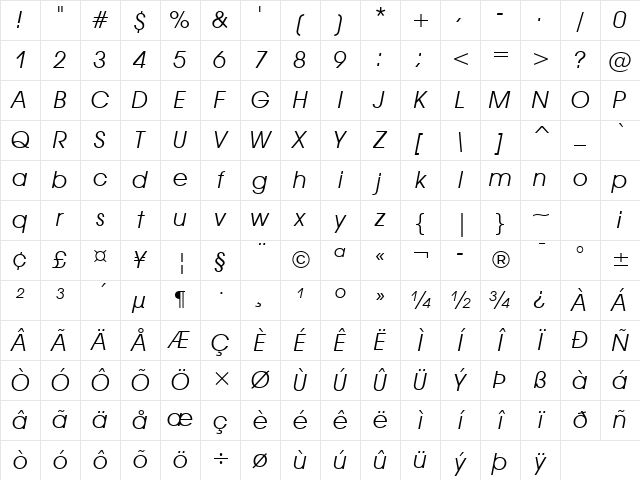
AvantGarde Bk BT Book Oblique
Style: Book Oblique
Complete AvantGarde Bk BT Book Oblique glyph index. Displaying only characters natively supported by AvantGarde Bk BT Book Oblique font.
Design Context for AvantGarde Bk BT
AvantGarde Bk BT is a composed and adaptable typeface that performs quietly and consistently across a wide range of design contexts. The slanted form adds forward momentum and visual energy.
Pro Tip: Use AvantGarde Bk BT for emphasis, pull quotes, and subheadings where its slanted energy can add rhythm to the layout.